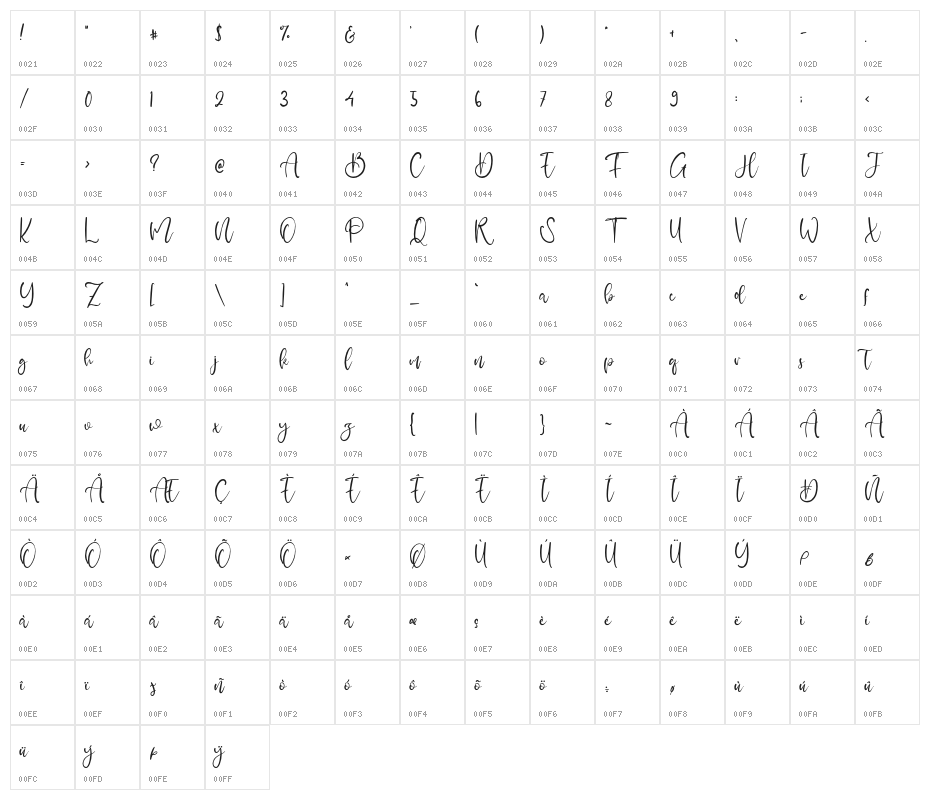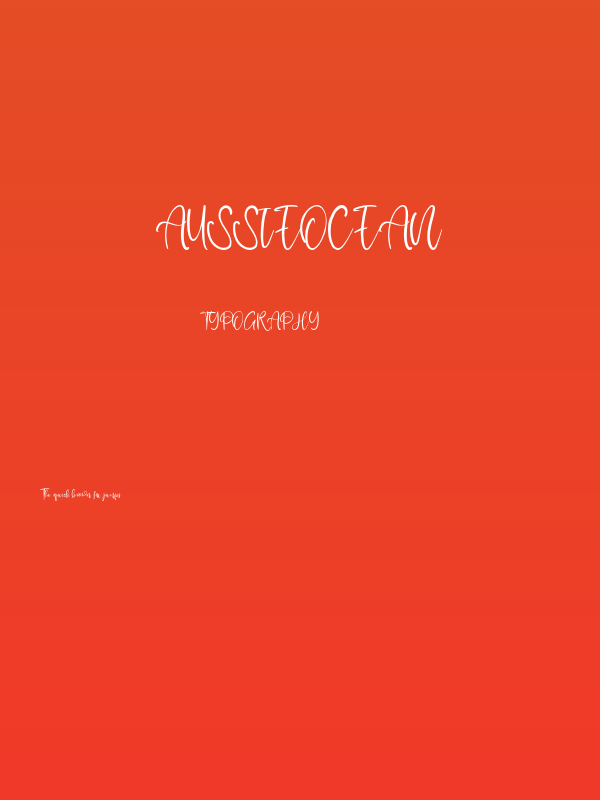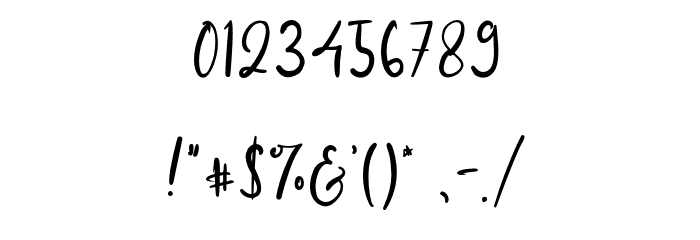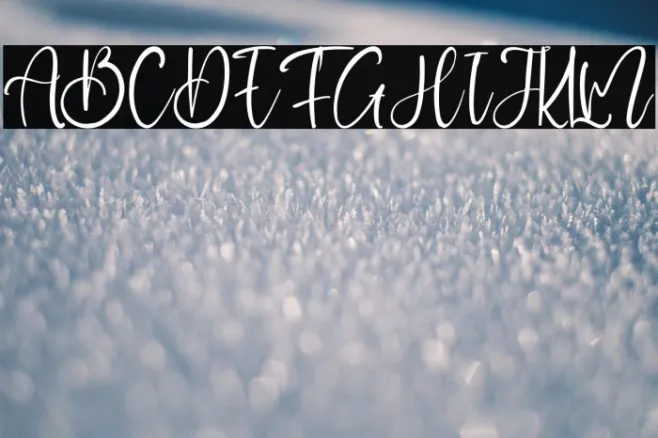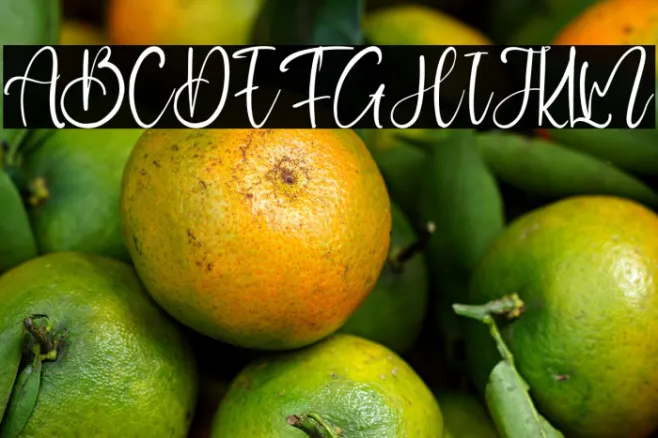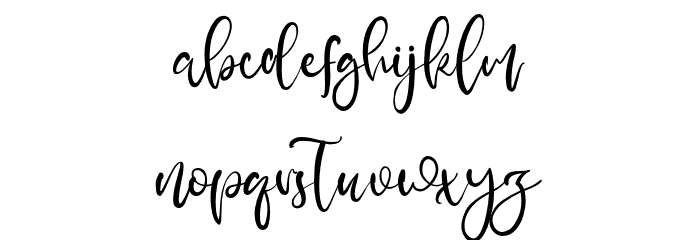
AussieOcean Font
AussieOcean Description
This font features a lively and flowing script style, characterized by its elegant, cursive letters that mimic the fluidity of handwriting. The uppercase letters are bold and expressive, with intricate loops and swirls that add a touch of sophistication. The lowercase letters maintain a consistent flow, enhancing readability while retaining a stylish flair. Numbers and special characters are crafted to match the overall aesthetic, ensuring a cohesive look across all text. The font's playful yet refined appearance makes it suitable for a variety of creative projects.